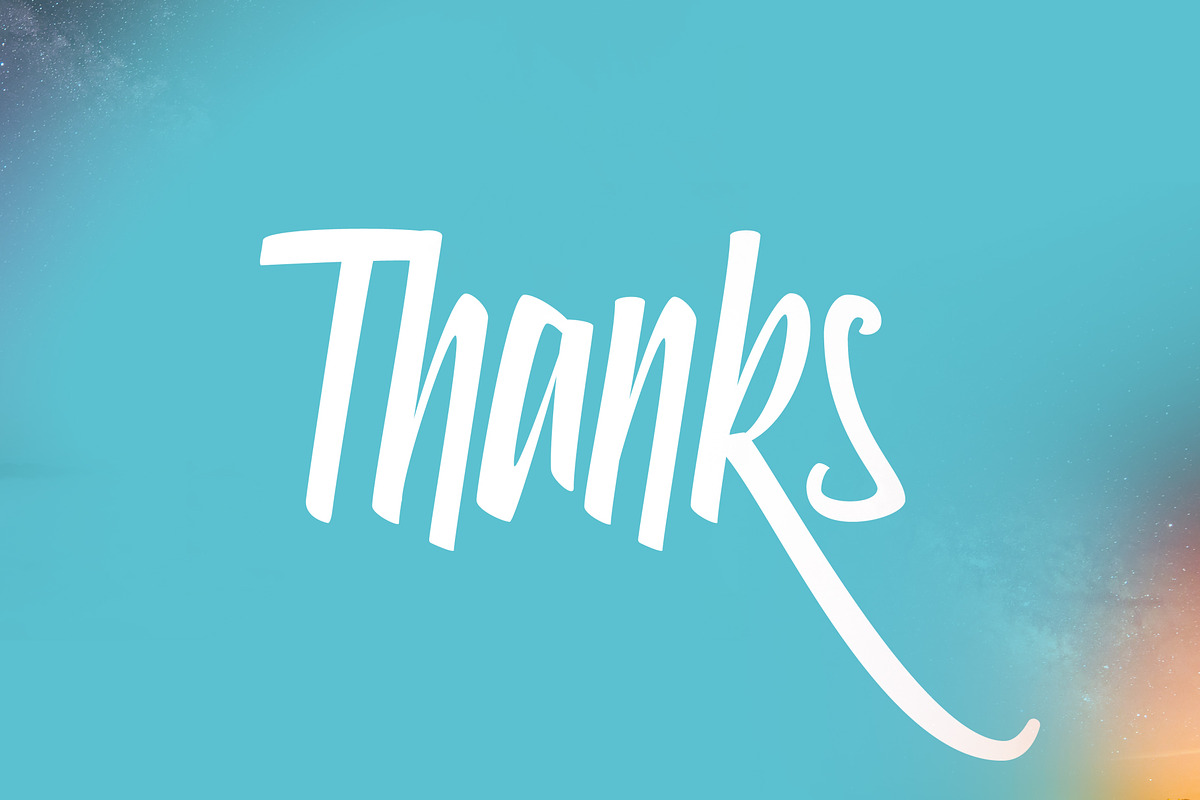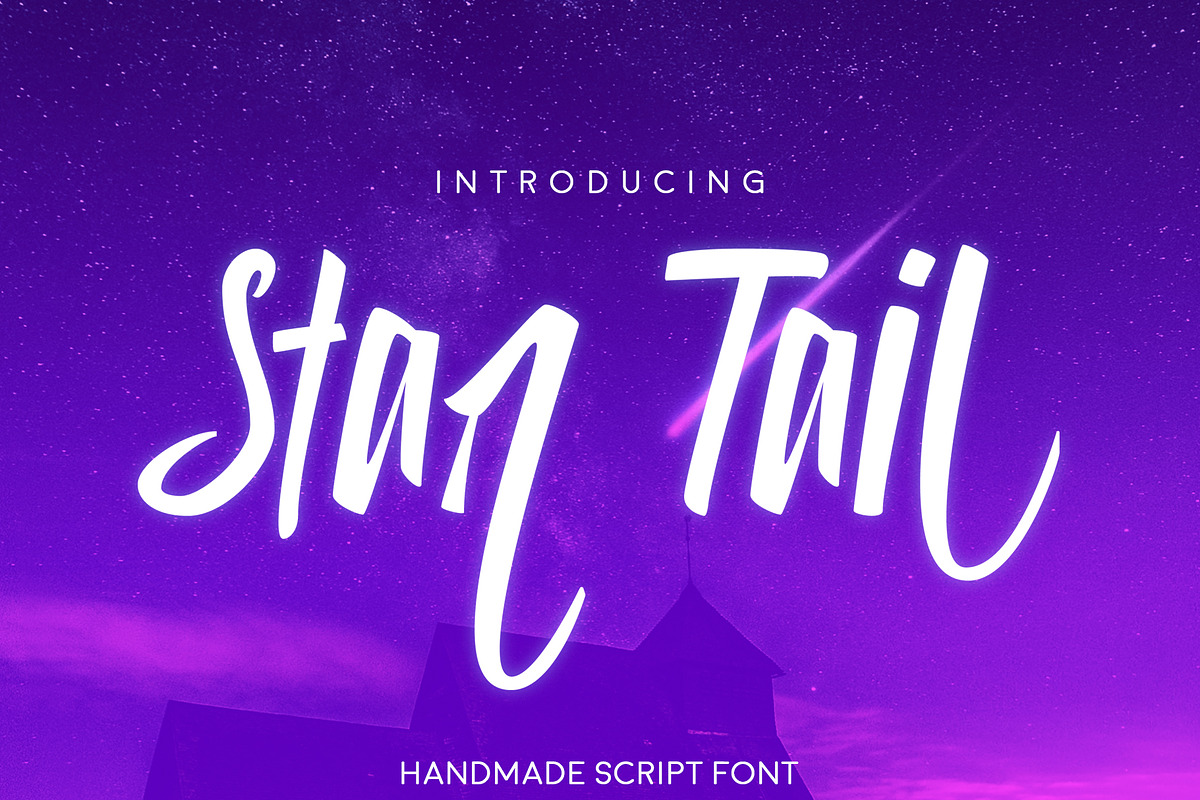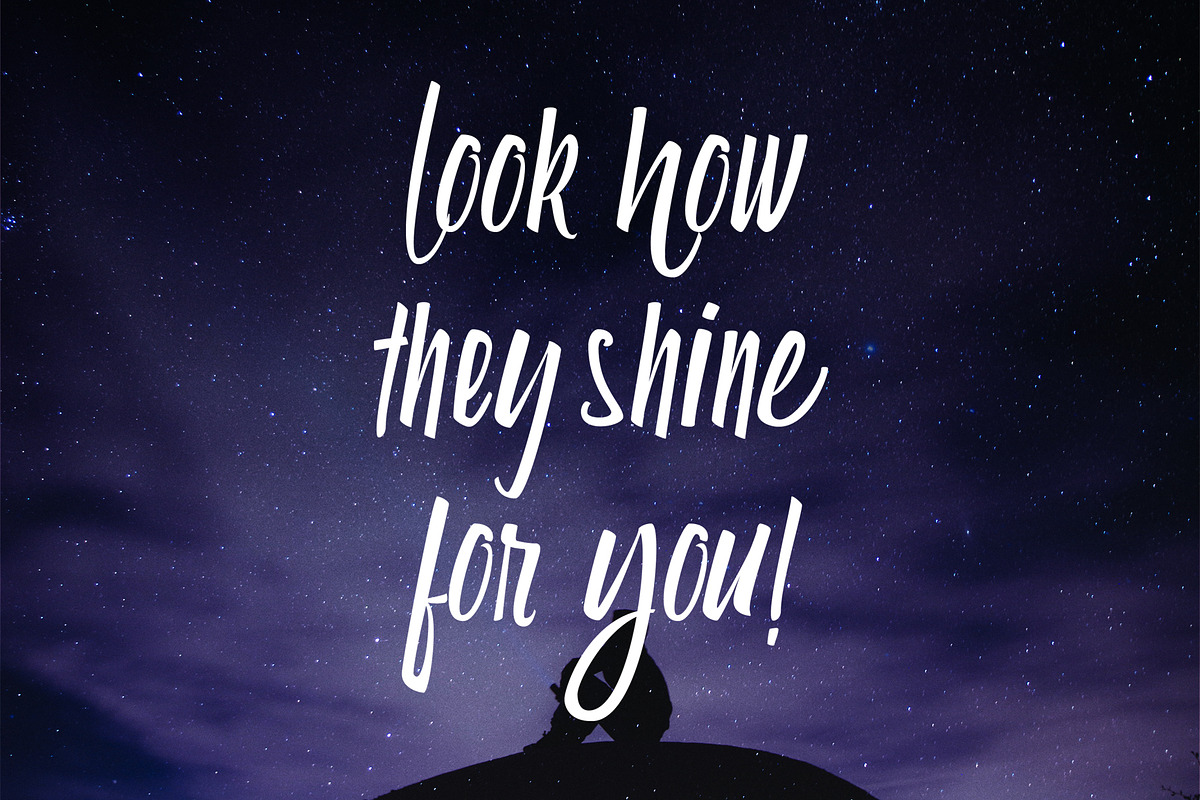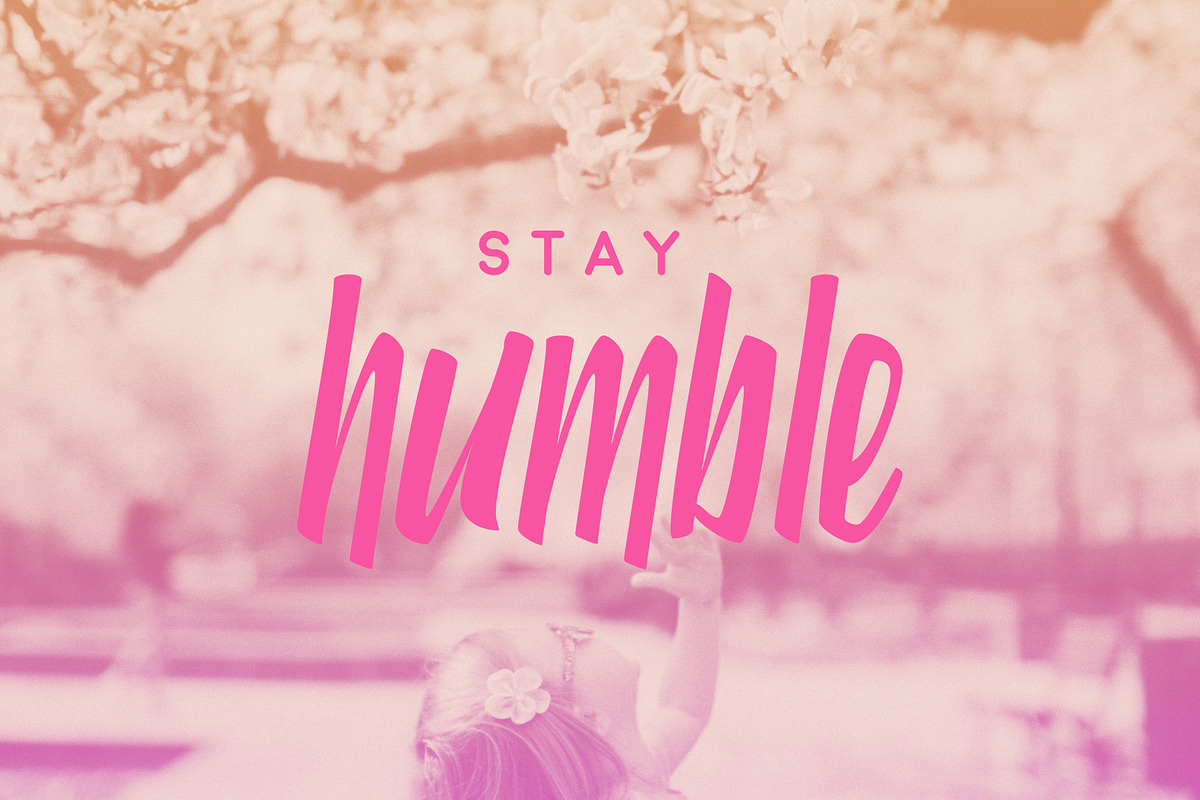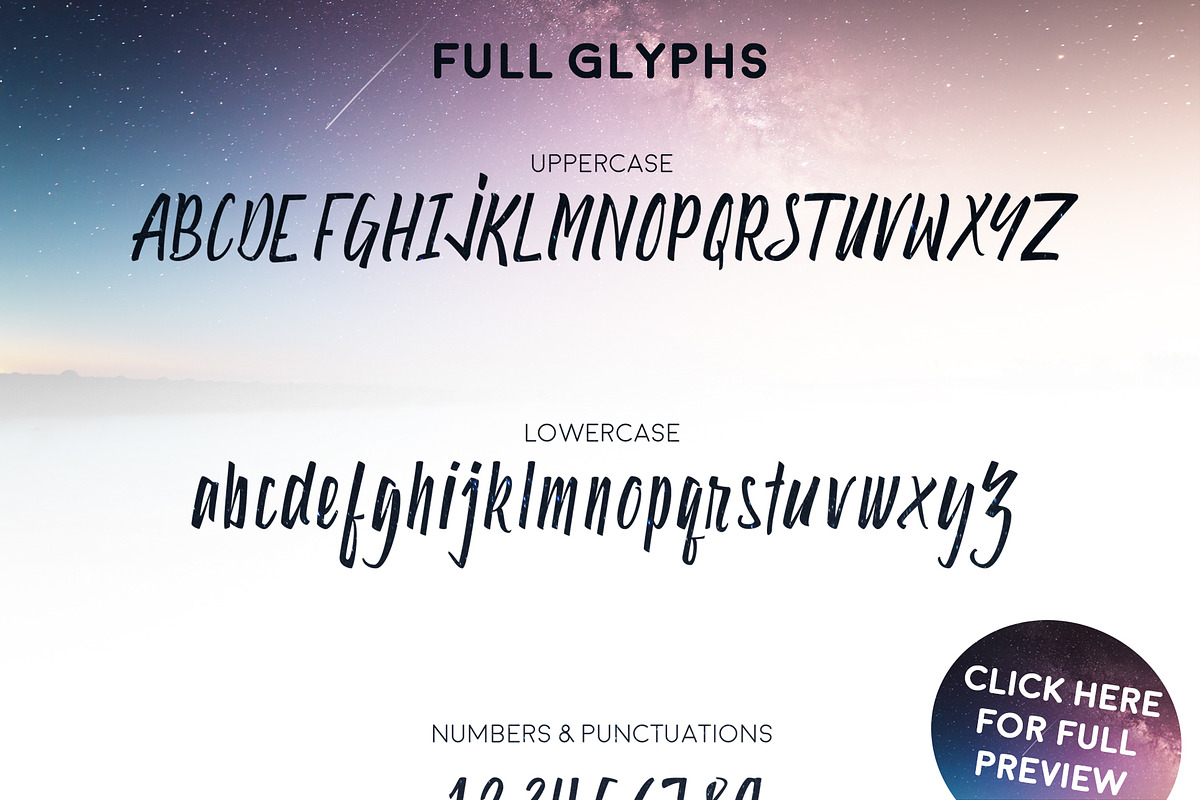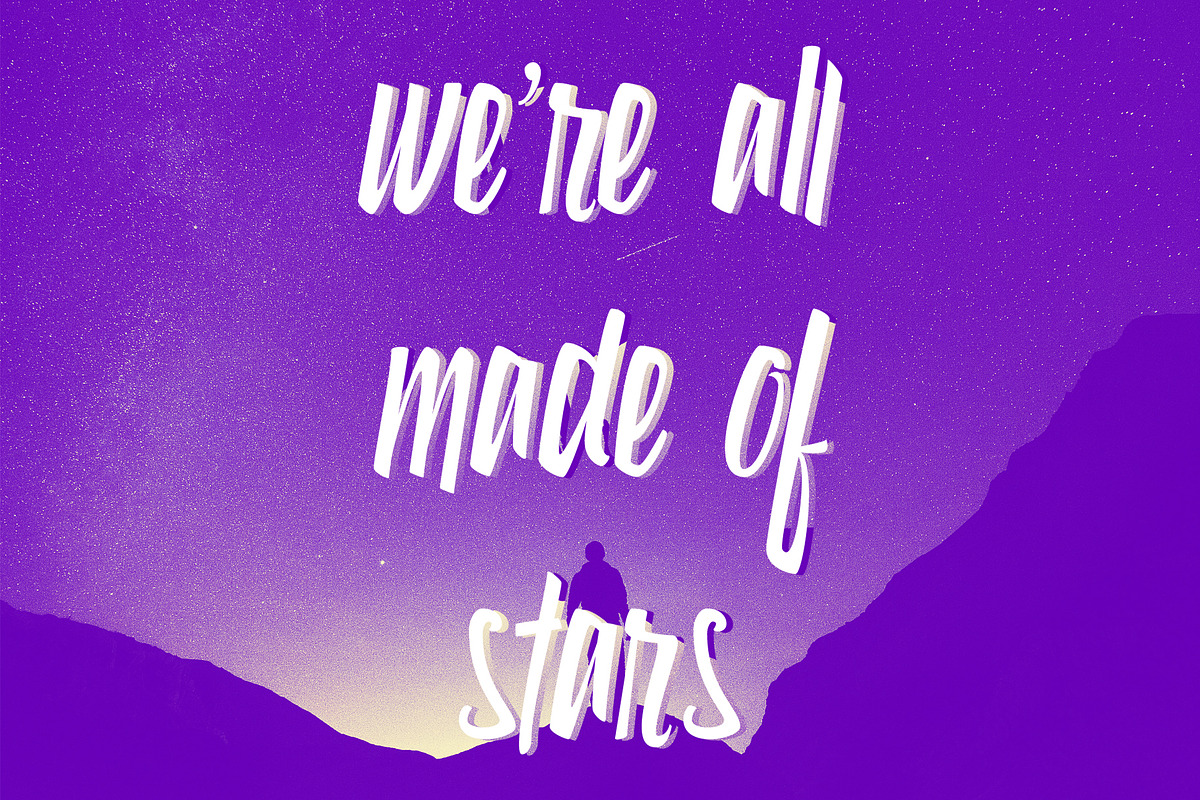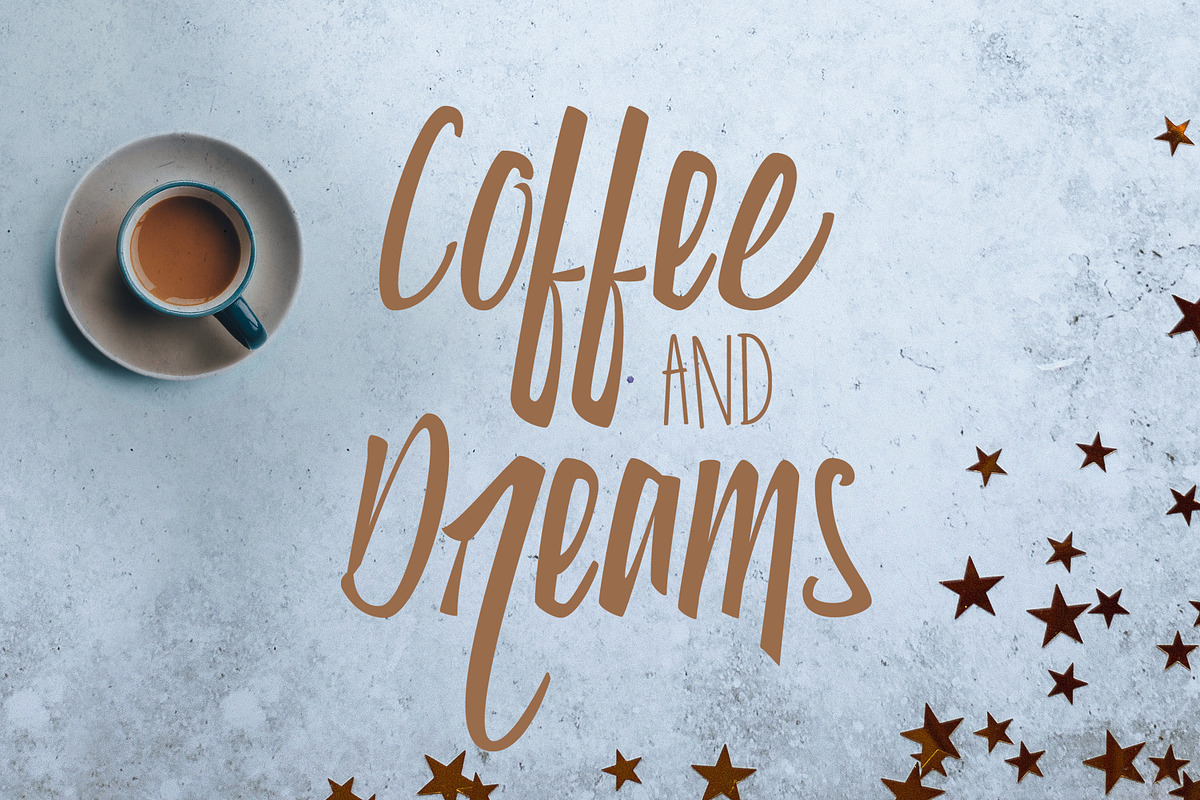
Star Tail Script Font
Hand Made Script Font "Star Tail"
Star Tail is a beautiful hand lettering font made with hand and then vectorised in Illustrator before putting it together. It is perfect for any of your project which requires a clean hand made feel.
Star tail supports lot of languages and has a plenty of international characters. Use the preview box below to test.
Star Tail Script Font by Pulp Creative Studios fits naturally into Branding, posters, packaging, typography.